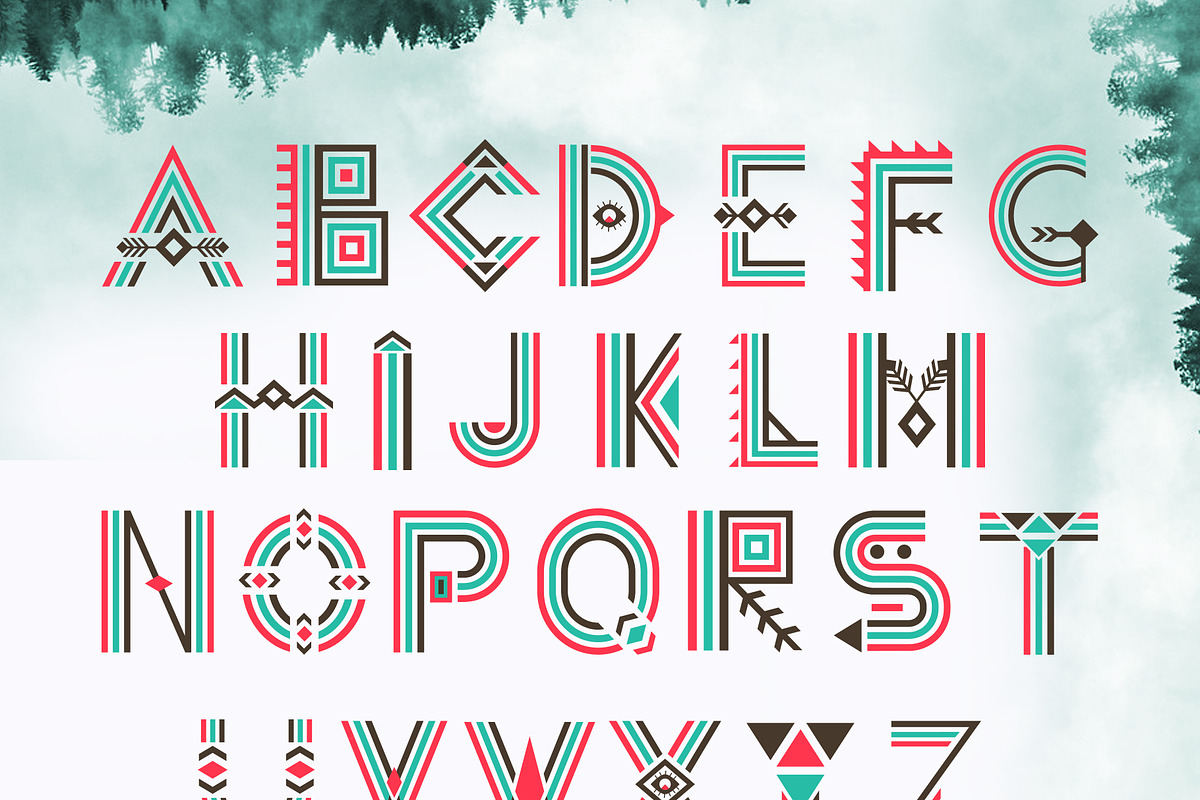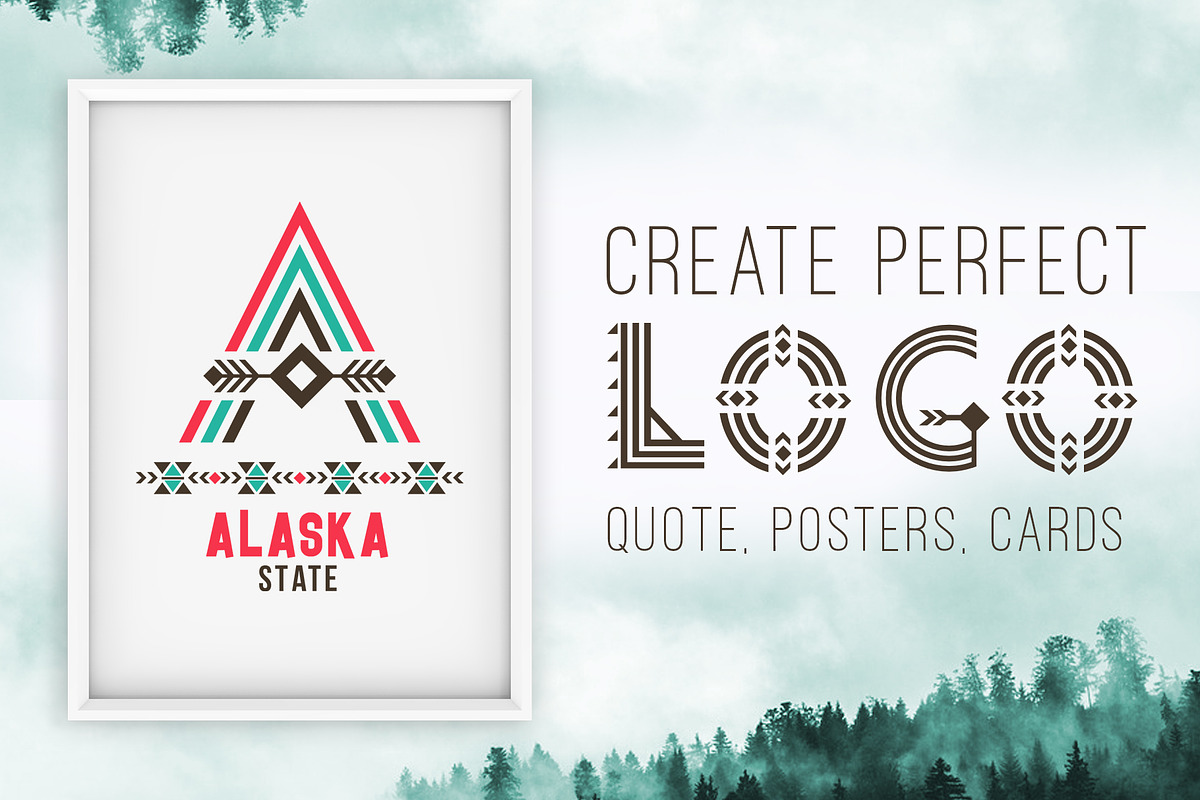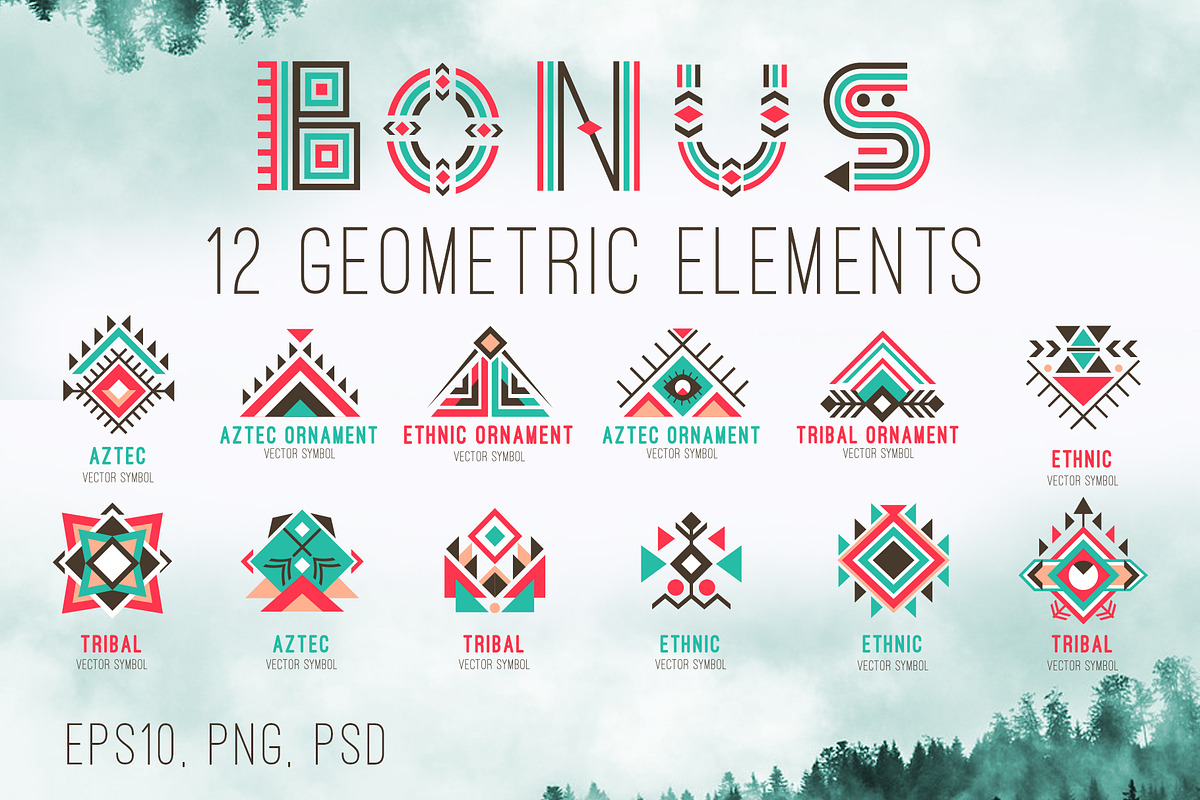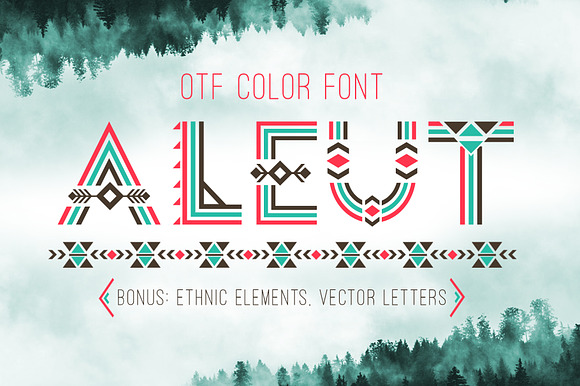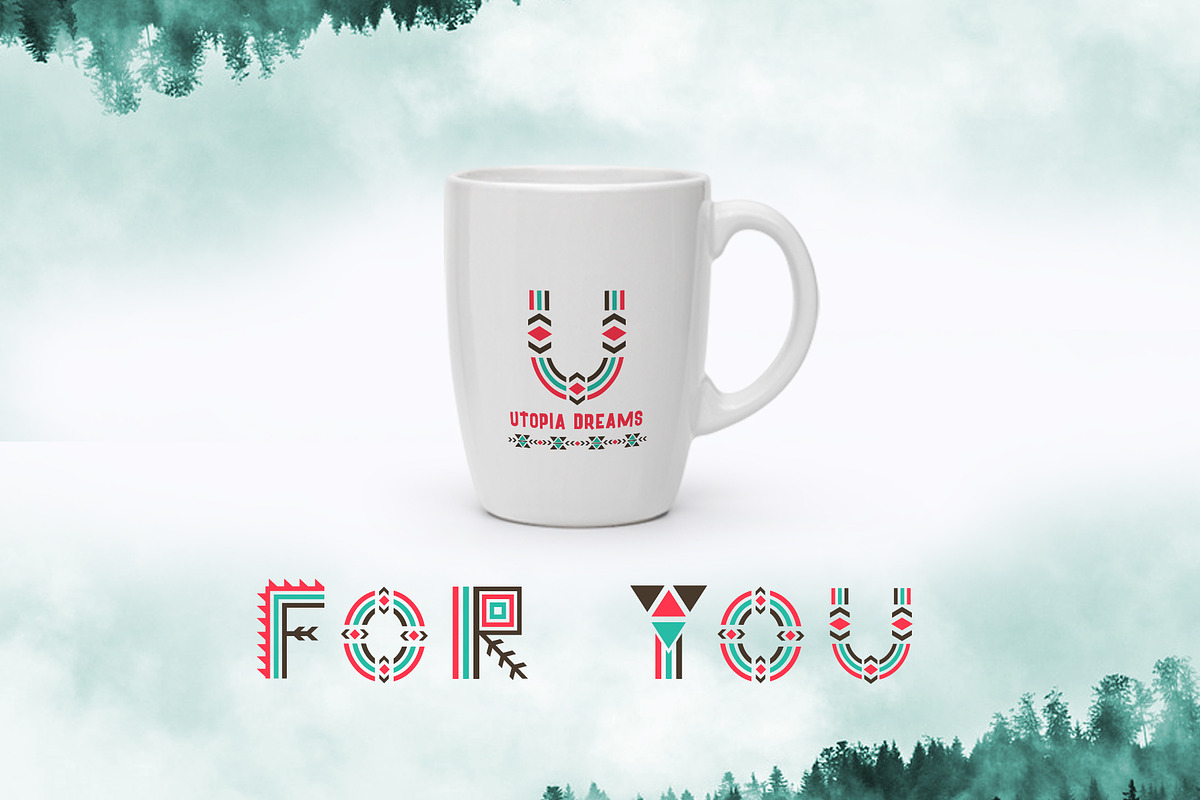
Tribal Aleut OTF color font.
Tribal Aleut OTF color font. Native Historic font, traditional ethnic characters in style of customs and traditions of national culture. You can use this font for design logos, quotes prints on t-shirts and other.
Bonus: Colorful geometric elements and vector letters